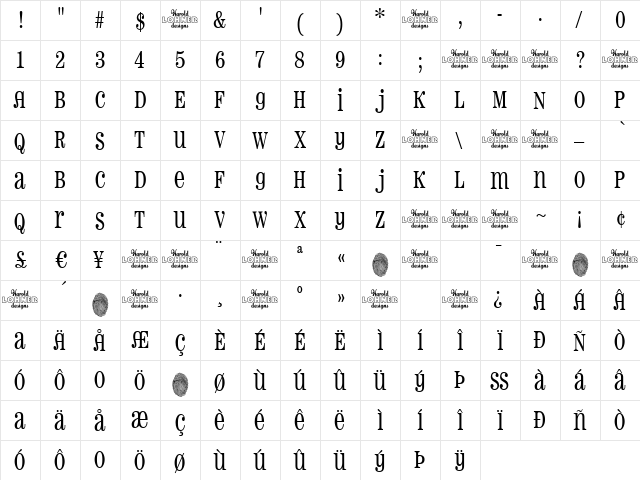
Pharmacy Regular Font Preview
Pharmacy Regular
Design Context for Pharmacy Typeface
Pharmacy takes a measured approach to typography — its balanced proportions and neutral character make it a reliable workhorse for both digital and print work.